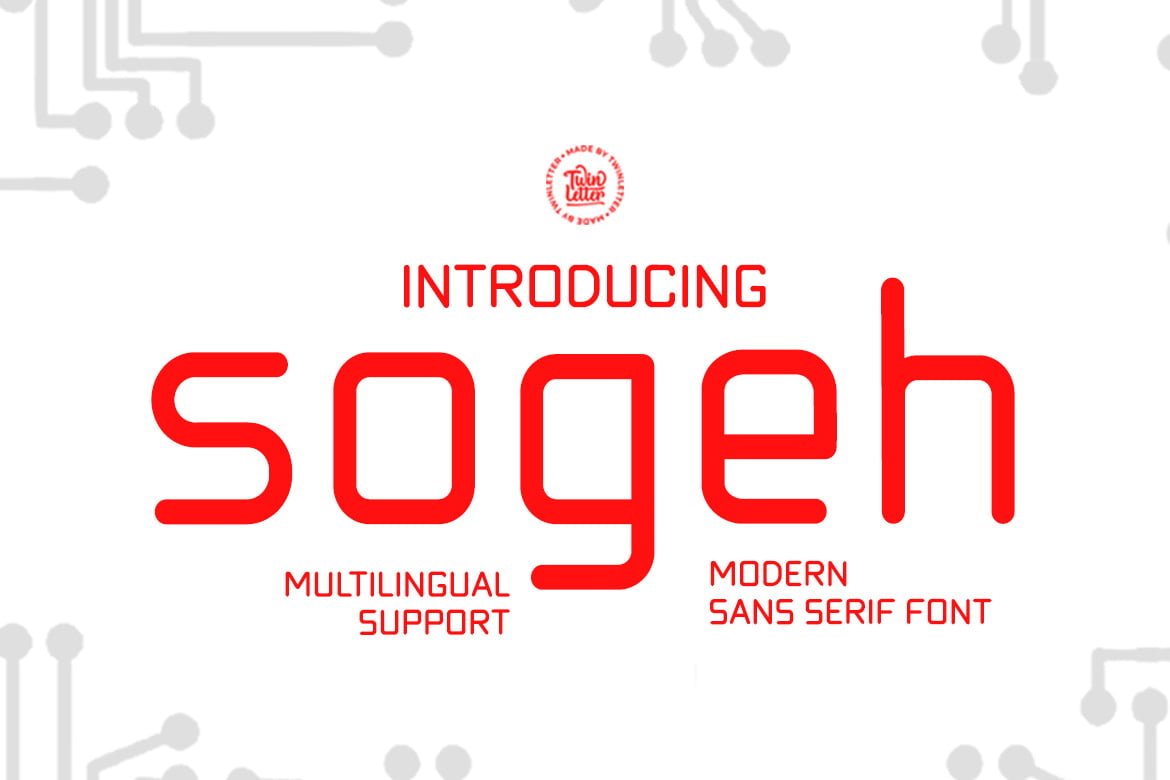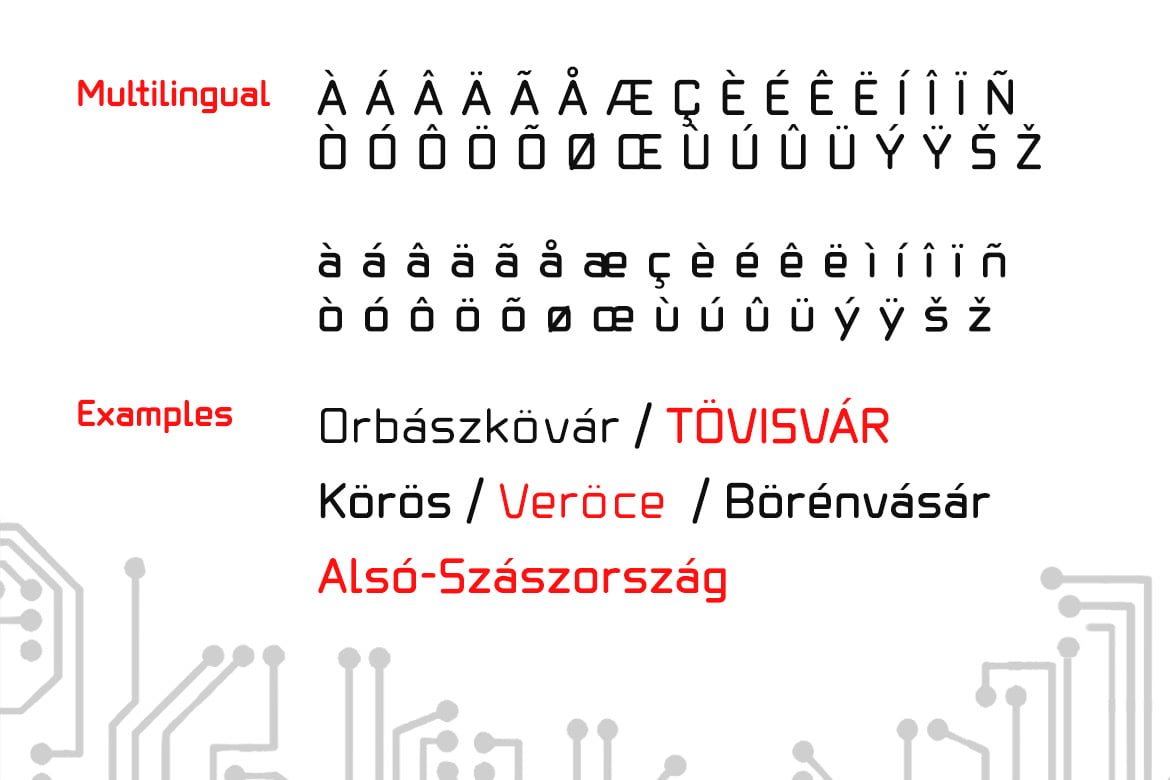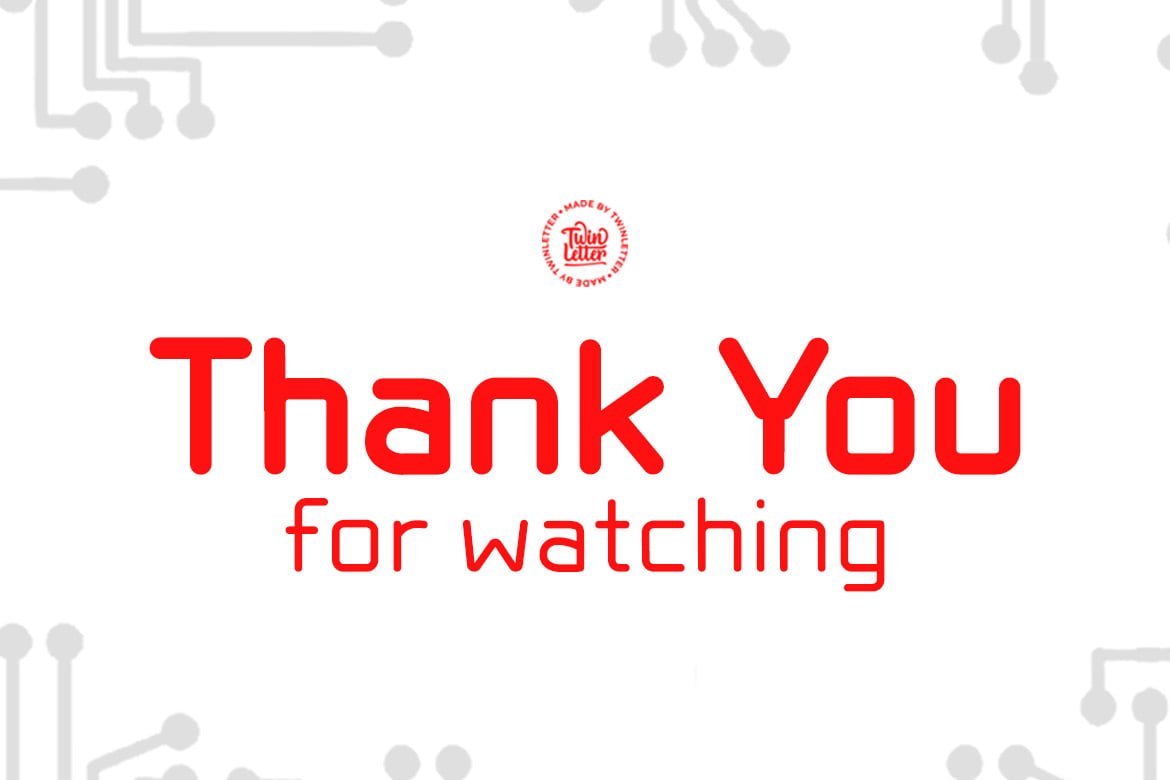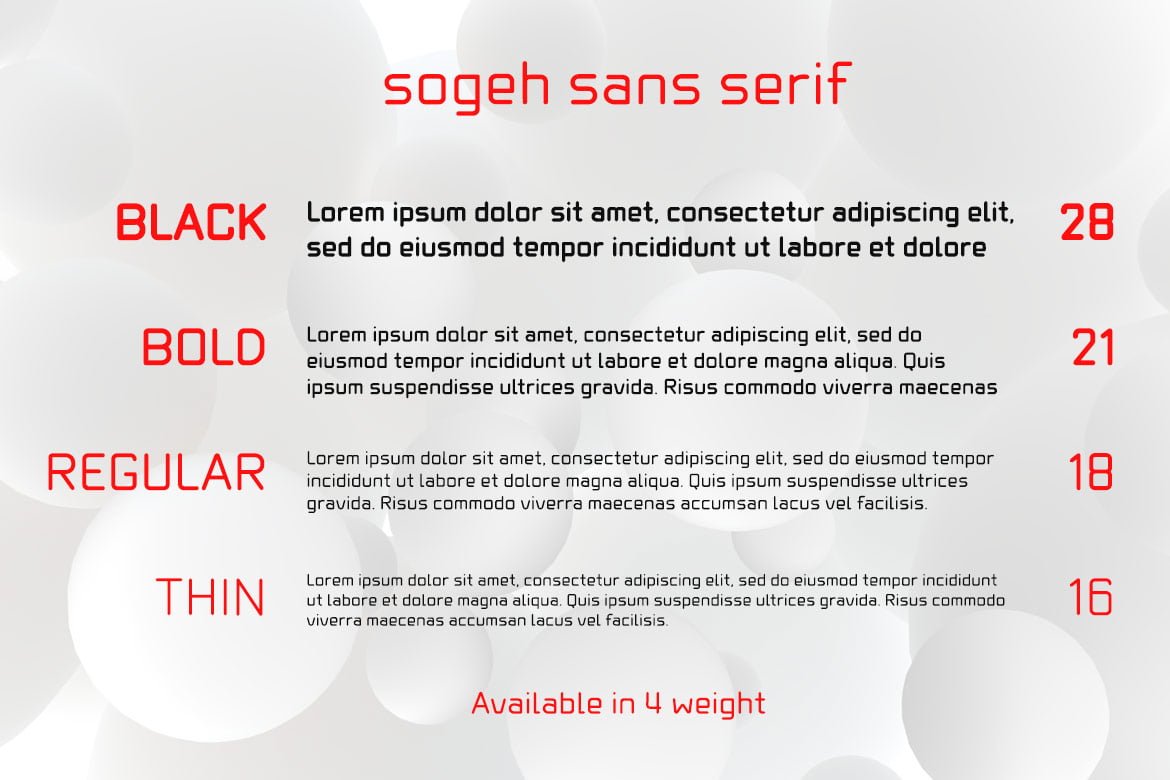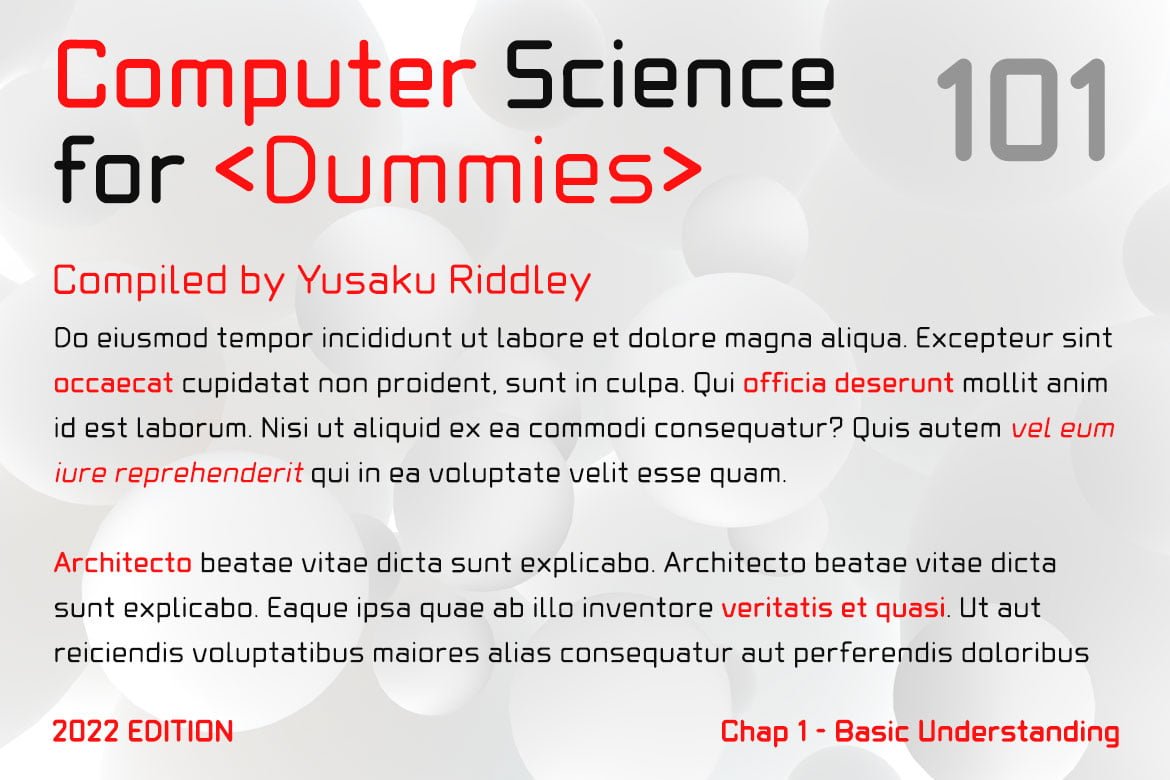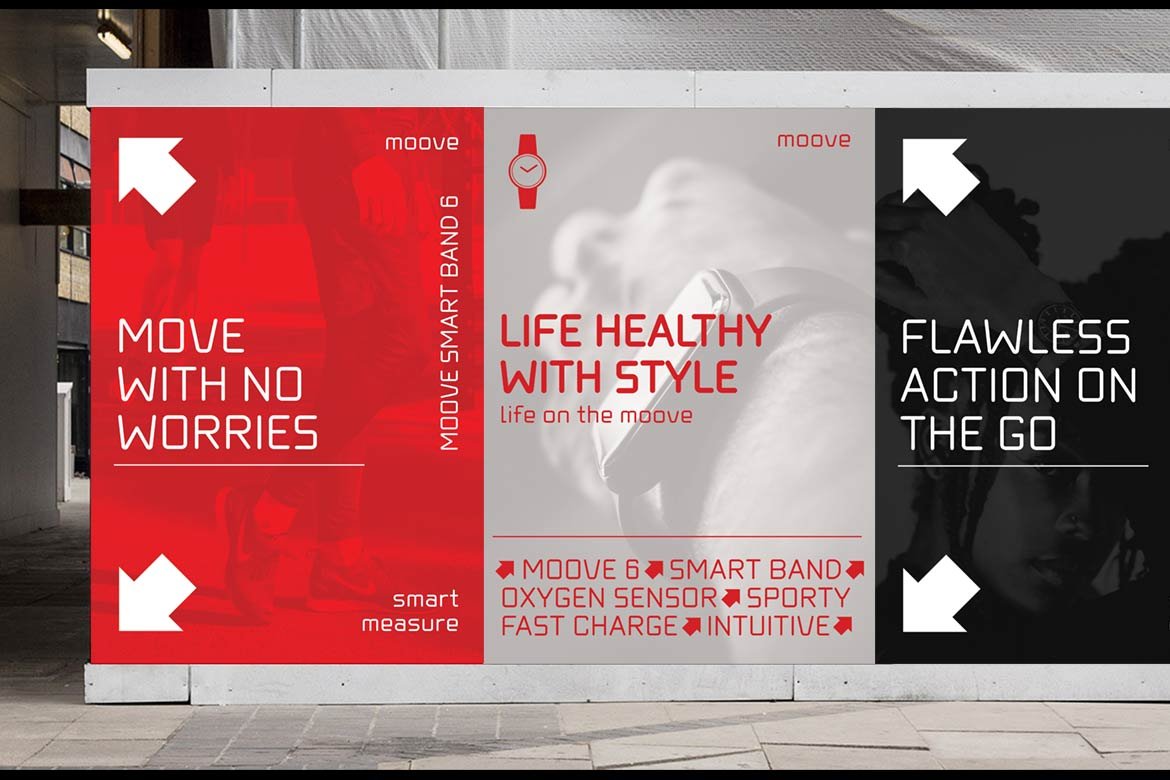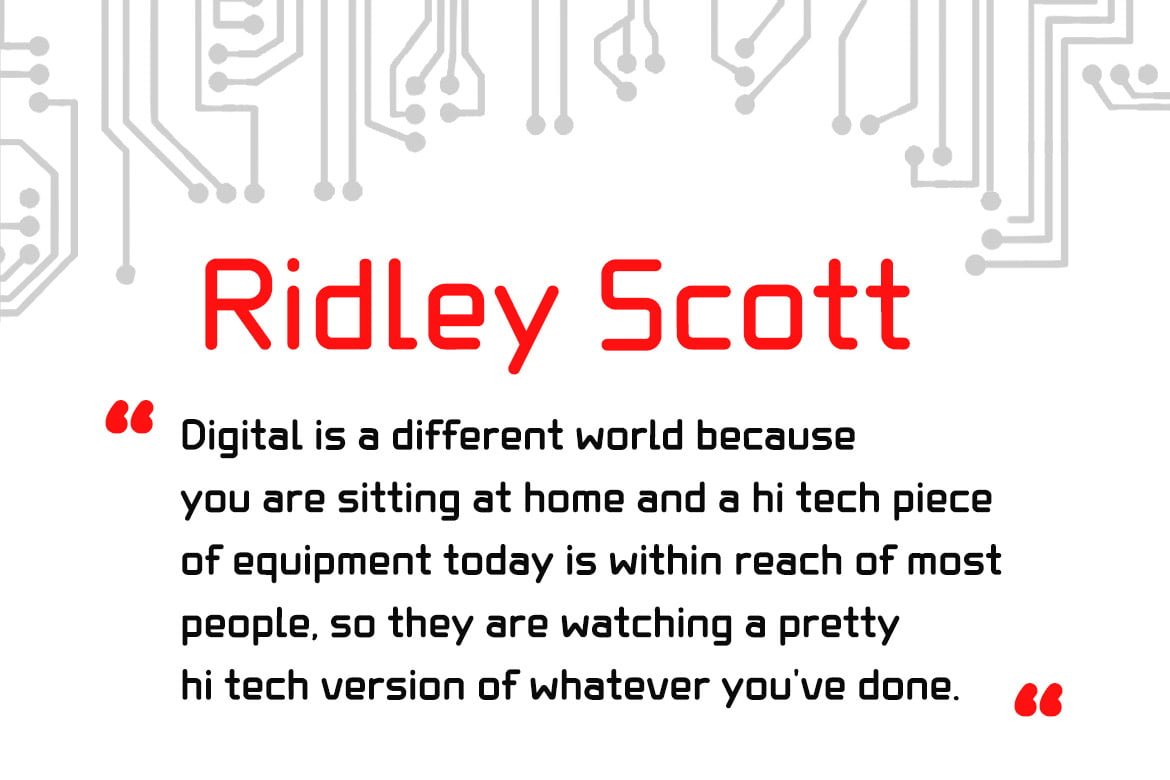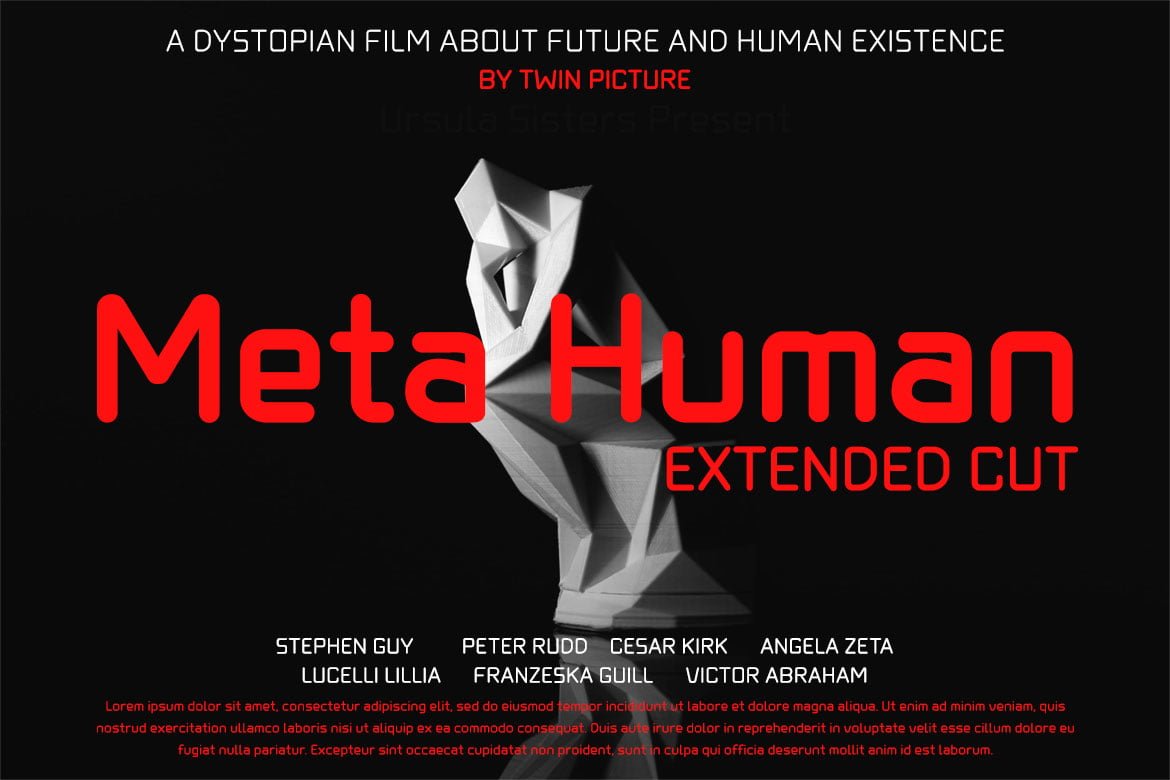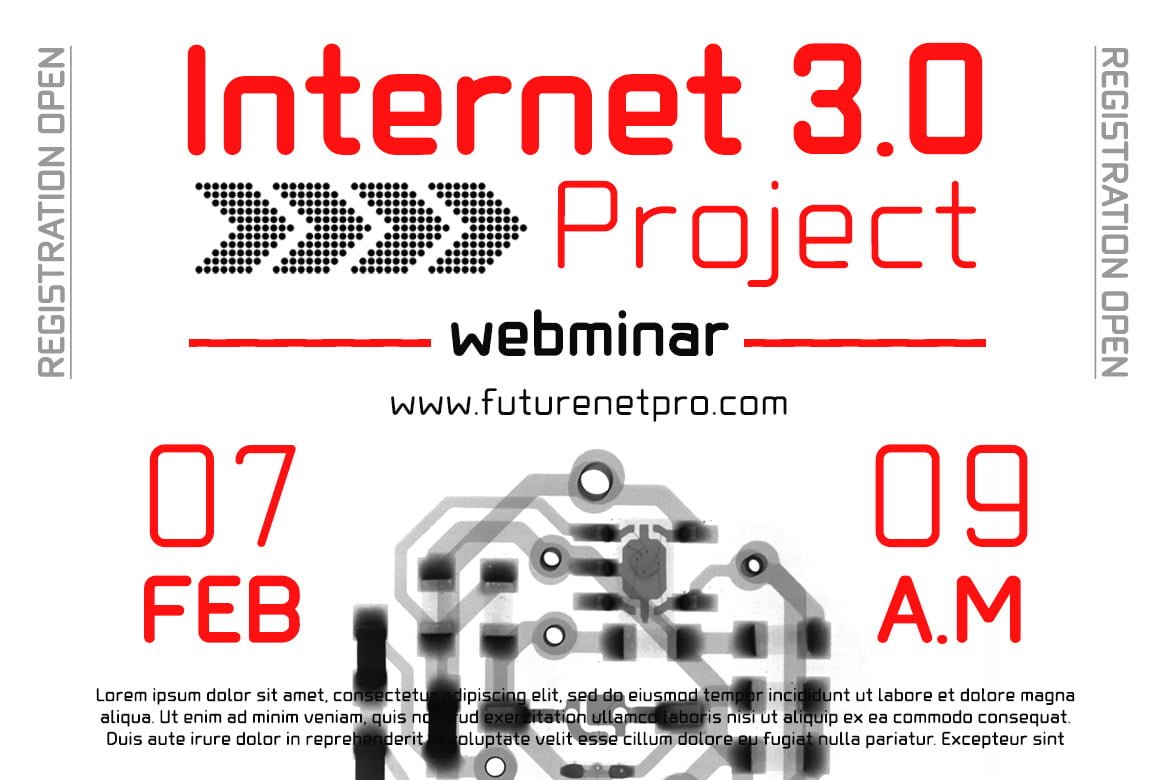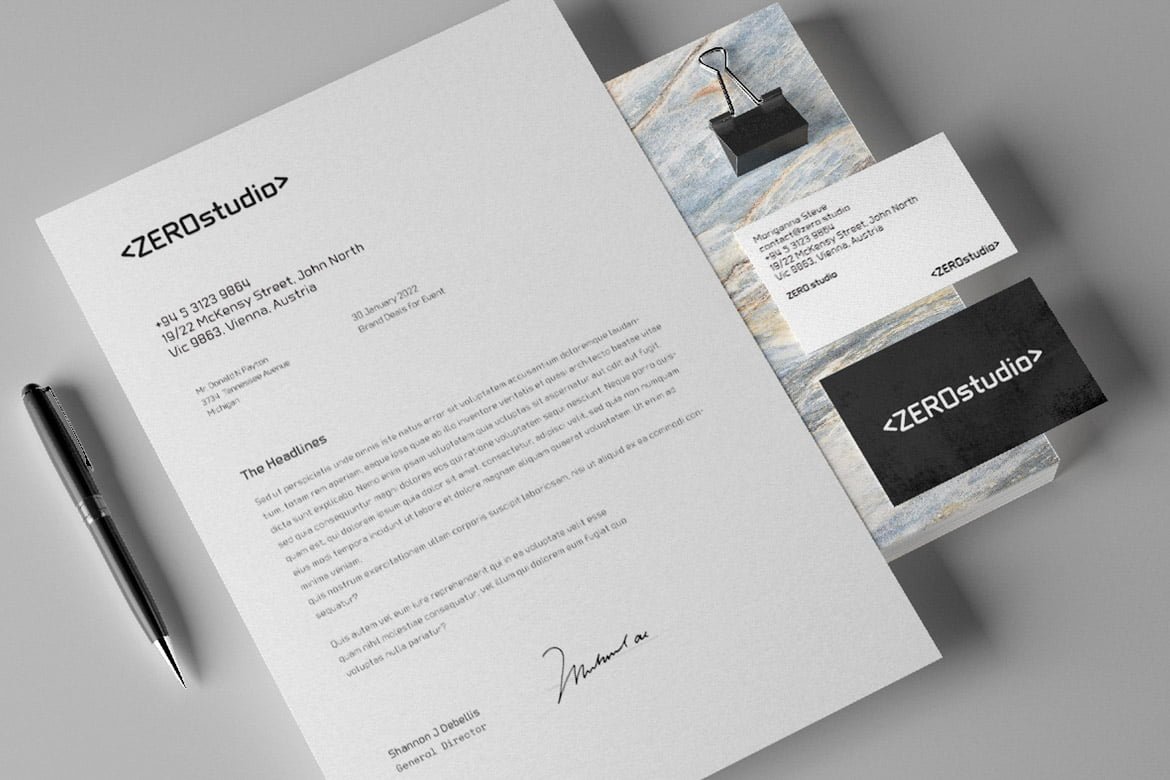
Sogeh
Sogeh is a sanserif font with a simple and straightforward design.
This basic font has a modern shape and an exotic appearance while being comfortable and attractive to the eye. With this font, all of your special projects will look luxurious, cool, and well-liked by a large portion of your audience. Use this typeface to achieve the best possible outcomes in all of your projects.
• Fonts include multilingual support for; Afrikaans, Albanian, Croatian, Czech, Danish, Dutch, English, Estonian, Finnish, French, German, Hungarian, Italian, Norwegian, Polish, Portuguese, Slovak, Slovenian, Spanish, Swedish